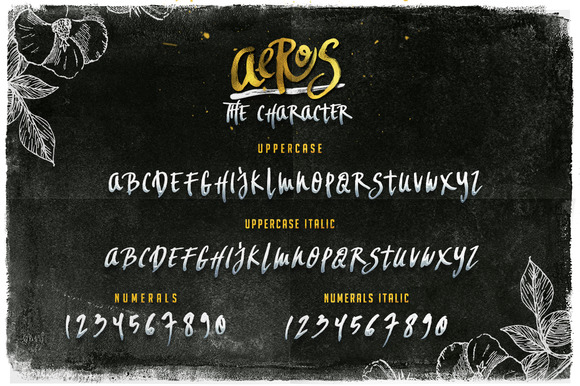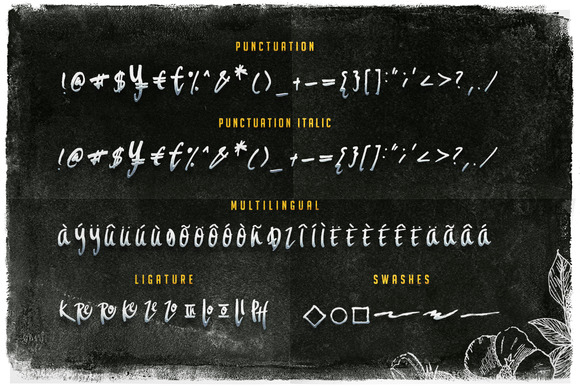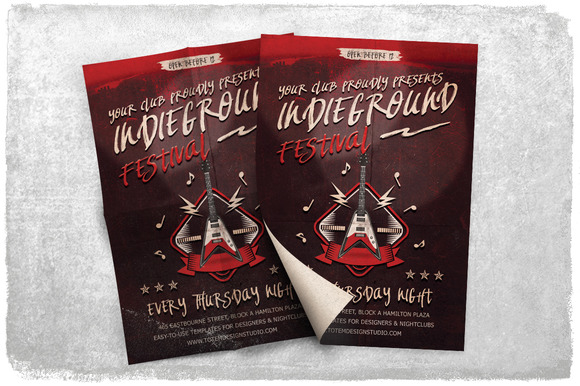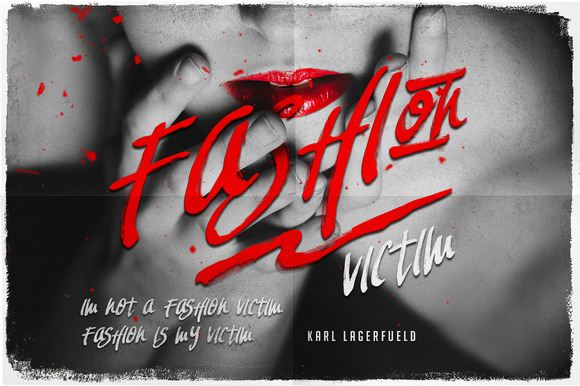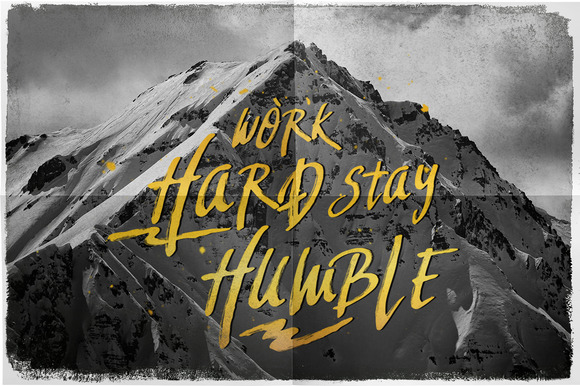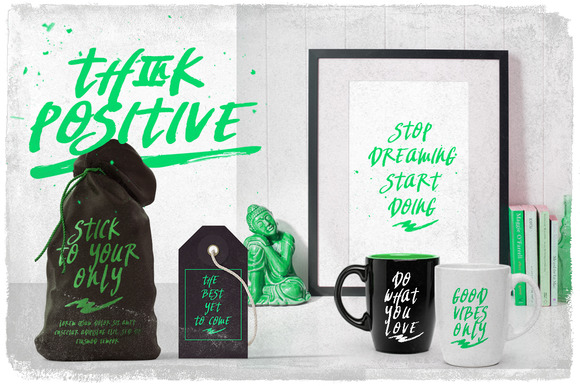
Aeros Font: Elevate Your Designs with a Hand-Painted Grunge Look
Are you tired of using the same old fonts in your designs? Look no further than Aeros Font, a stunning hand-painted font created by Drizy. With its rough, grunge look and feel, Aeros is perfect for designers and crafters who want to add a unique touch to their work. In this article, we’ll dive into the details of Aeros Font, exploring its features, benefits, and uses.
What is Aeros Font?
Aeros Font is a hand-painted font designed by Drizy, a talented font creator. This font is characterized by its rough, grunge texture, which gives it a distinctive look and feel. Aeros comes in two weights: Aeros Regular and Aeros Italic, making it versatile for various design applications.
Key Features of Aeros Font
- Hand-painted look: Aeros Font boasts a unique, hand-painted look that adds a personal touch to your designs.
- Rough, grunge texture: The font’s rough texture gives it a distinctive, edgy feel that’s perfect for designs that require a bold statement.
- Two weights: Aeros Font comes in two weights: Aeros Regular and Aeros Italic, making it suitable for a range of design applications.
Benefits of Using Aeros Font
So, why should you choose Aeros Font for your designs? Here are just a few benefits:
- Add a unique touch: Aeros Font’s hand-painted look and rough texture ensure that your designs stand out from the crowd.
- Perfect for grunge designs: If you’re going for a grunge or vintage look, Aeros Font is an excellent choice.
- Versatile: With two weights to choose from, Aeros Font can be used for a range of design applications, from headings and titles to body text.
- Supports multiple languages: Aeros Font supports multiple languages, making it a great choice for designers working on international projects.
Uses of Aeros Font
Aeros Font is a versatile font that can be used in a variety of design applications, including:
- Graphic design: Use Aeros Font to create stunning graphics, posters, and flyers.
- Branding: Aeros Font is perfect for creating unique brand identities, logos, and business cards.
- Web design: Add a touch of personality to your website with Aeros Font, perfect for headings, titles, and body text.
- Crafting: Aeros Font is a great choice for crafters, perfect for creating handmade cards, scrapbook pages, and other paper crafts.
Tips for Using Aeros Font
Here are a few tips for getting the most out of Aeros Font:
- Experiment with colors: Aeros Font’s rough texture looks great with bold, bright colors.
- Mix and match: Combine Aeros Font with other fonts to create a unique look.
- Pay attention to spacing: Make sure to adjust the spacing between letters to ensure optimal readability.
Aeros Font is a stunning hand-painted font that adds a unique touch to any design. With its rough, grunge texture and two weights to choose from, Aeros is perfect for designers and crafters looking to elevate their work. Whether you’re creating graphics, branding materials, or crafting handmade cards, Aeros Font is an excellent choice. So why not give it a try and see the difference it can make in your designs?